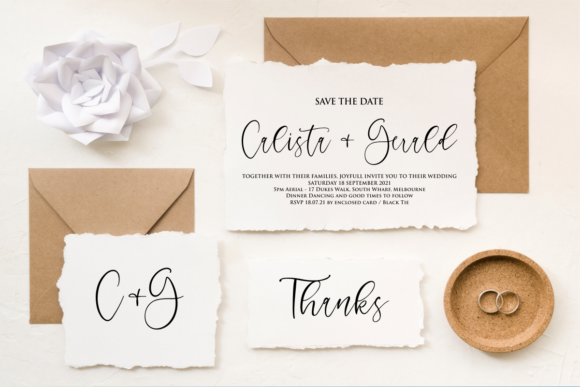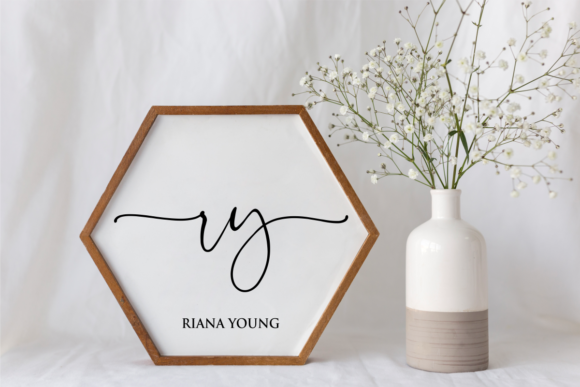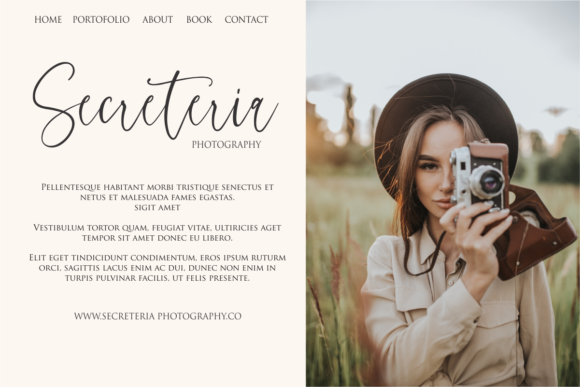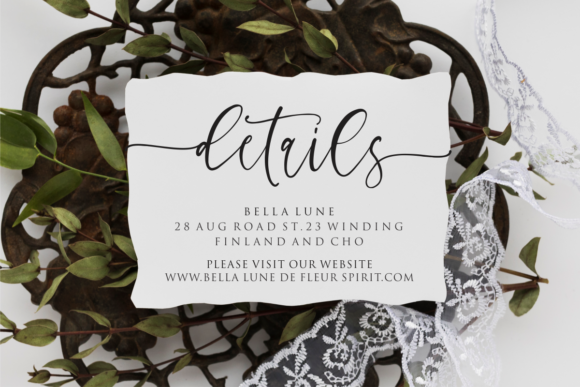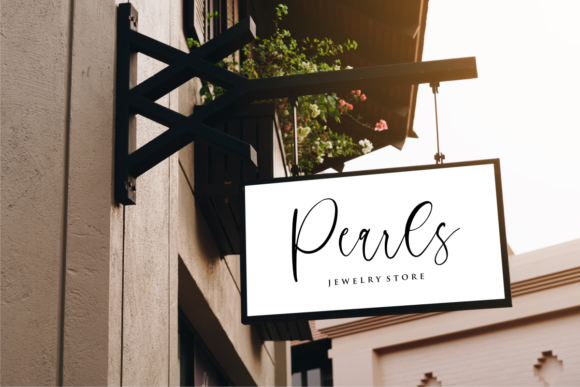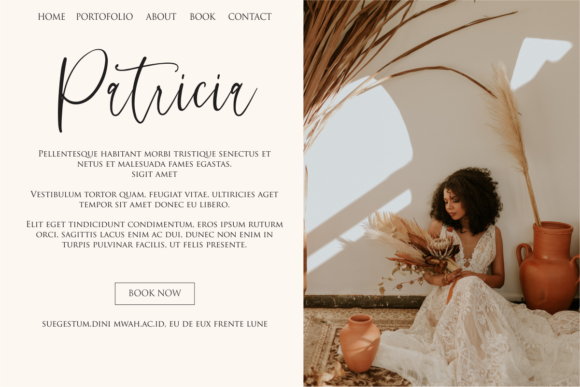
The Perfect Font for Your Next Design Project
Have you ever stared at a blank page, trying to come up with the perfect font to match your design vision? I know I have! It’s that moment when everything comes together – the colors, the layout, the typography – and you can finally see your project take shape. For me, that moment often involves the Charming Font, a chic and modern script font that never fails to impress.
Designed to add a touch of elegance and sophistication to any design, the Charming Font is perfect for creating beautiful wedding invitations, stunning social media posts, and gorgeous greeting cards. Its unique features, including alternate glyphs and ligatures, make it a valuable asset for designers looking to add a personal touch to their work.
Key Features of Charming Font
- Font Family: Charming Font comes in three styles – Regular, Italic, and Bold, making it versatile for various design needs.
- Unique Characteristics: Charming Font features elegant and refined lines, making it perfect for creating a sophisticated and charming atmosphere in designs.
Review: Charming Font
Charming Font is a beautiful display font that has its moments of brilliance ✨. The first thing that caught my eye was the elegant and whimsical feel of the font. It’s perfect for any project that requires a touch of sophistication and playfulness. The font’s script-like features and subtle flair at the ends of letters make it a great choice for titles, headings, and quotes.
Another great aspect of Charming Font is its versatility. It comes in a range of weights and styles, making it suitable for various design projects, from logos and branding to magazine covers and editorial designs ✨. The font’s OpenType features also allow for advanced typography and layout options.
- ⚠️ Limited legibility at smaller font sizes, making it less suitable for body text
- ⚠️ Some characters may not render correctly in certain operating systems or software
Overall, Charming Font is a lovely addition to any designer’s toolkit. While it may have some limitations, its unique charm and versatility make it a great choice for specific design projects ✨. With a little creativity and experimentation, you can unlock its full potential and create stunning designs that stand out.
Tips for Getting the Most Out of Charming Font
Use Charming Font to add a touch of elegance and sophistication to your designs. Pair it with a clean and simple background to let the font shine. Experiment with different font sizes and colors to create visual interest.
Charming Font is perfect for:
- Restaurant menus and signage
- Product packaging and branding
- Event flyers and promotional materials